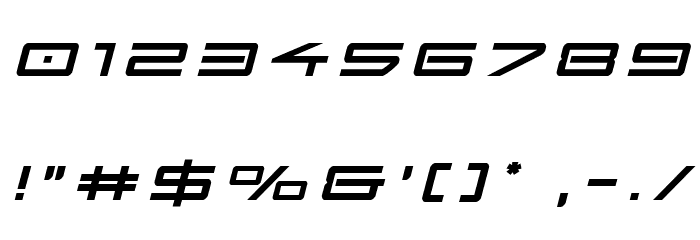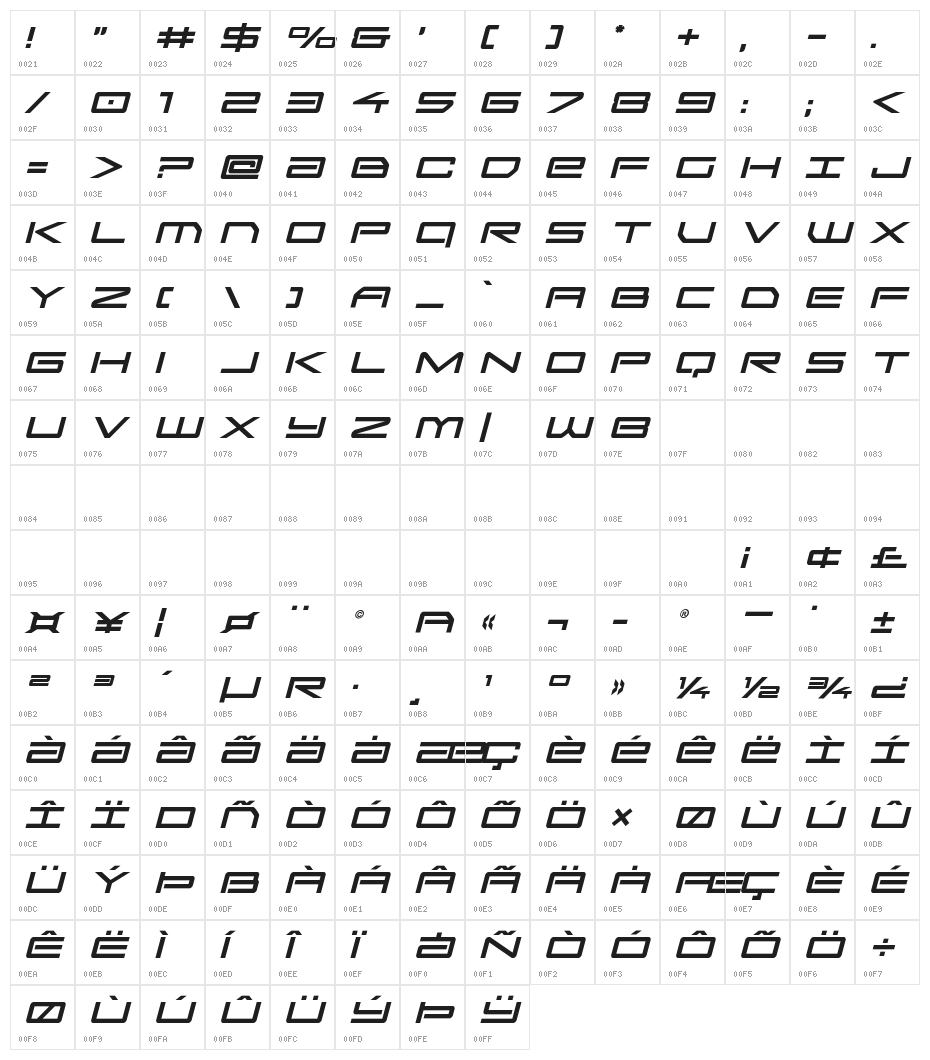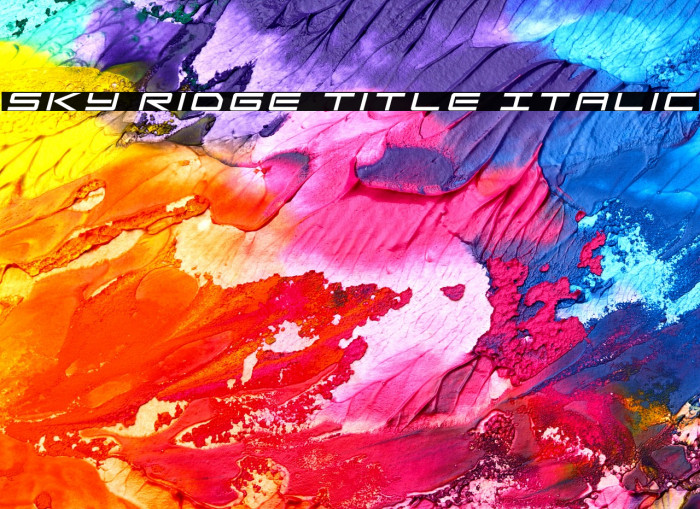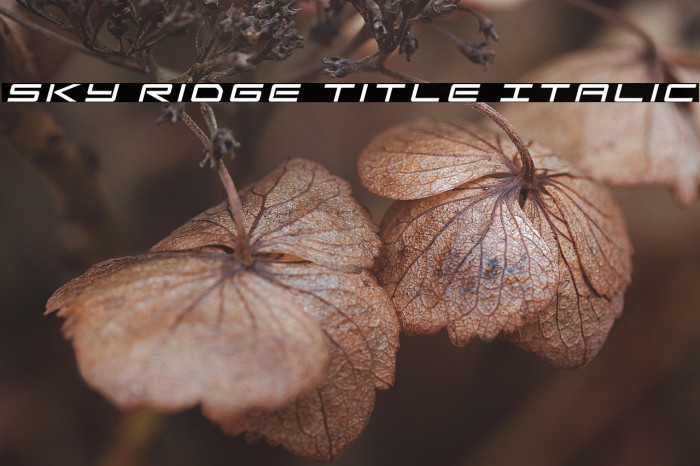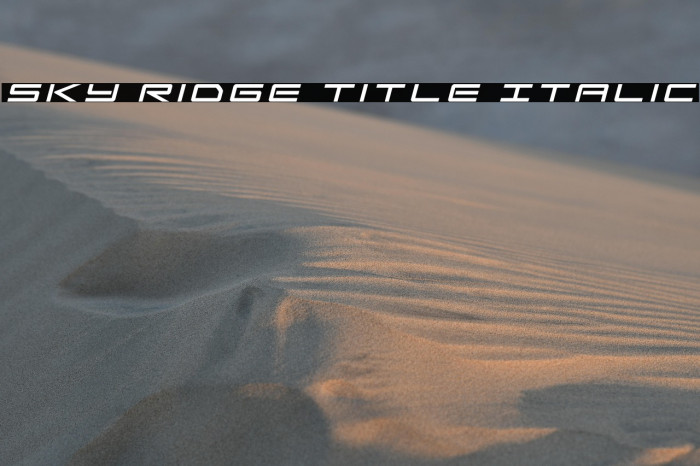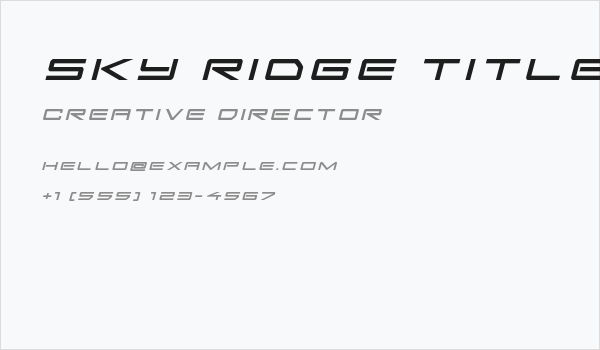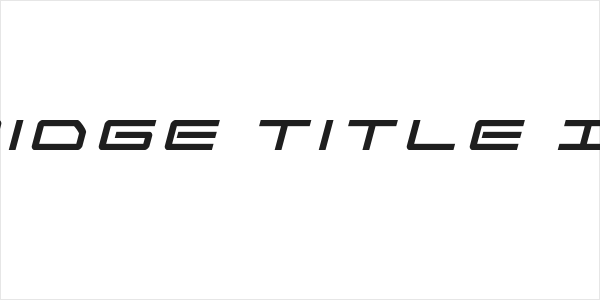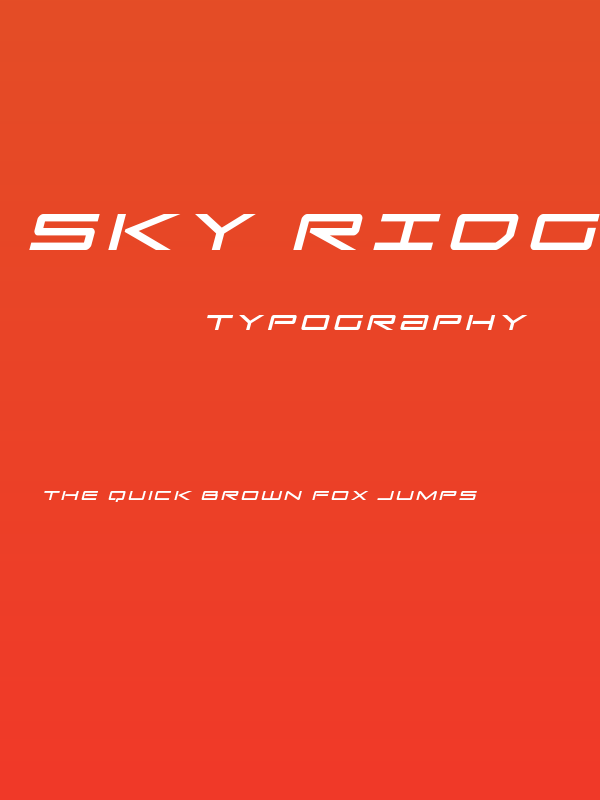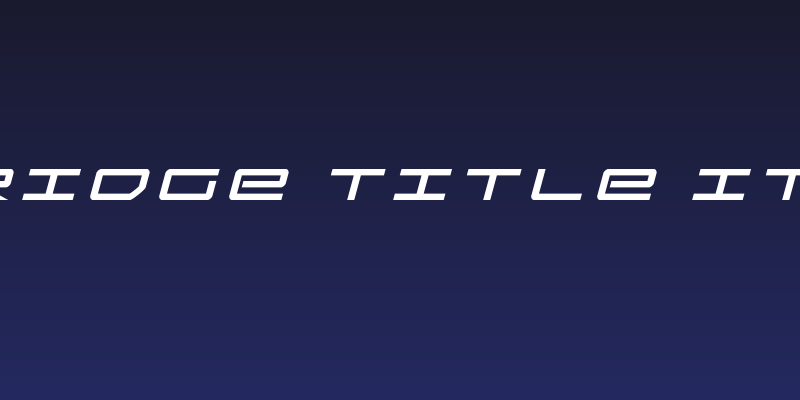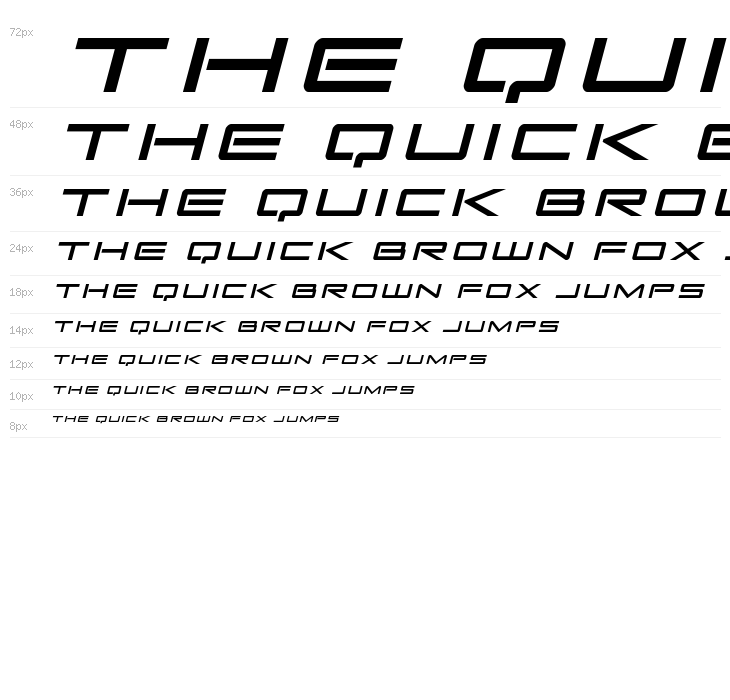
Sky Ridge Title Italic Font
Sky Ridge Title Italic Description
This font features a sleek, futuristic design with a distinct italic slant, giving it a dynamic and modern appearance. The characters are uniformly styled with sharp angles and clean lines, creating a sense of movement and speed. The uppercase and lowercase letters maintain a consistent geometric form, while the numerals and special characters complement the overall aesthetic. The font's design is both functional and stylish, making it suitable for a variety of creative applications.
| Use Case | Headlines, Logos, Display text |
| Proposed Projects | Ideal for technology branding, sci-fi themed projects, video game titles, and modern advertising. |